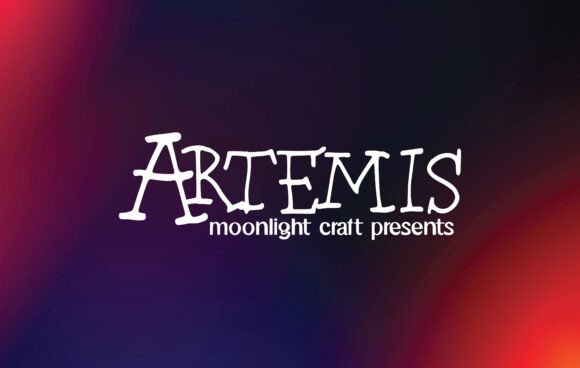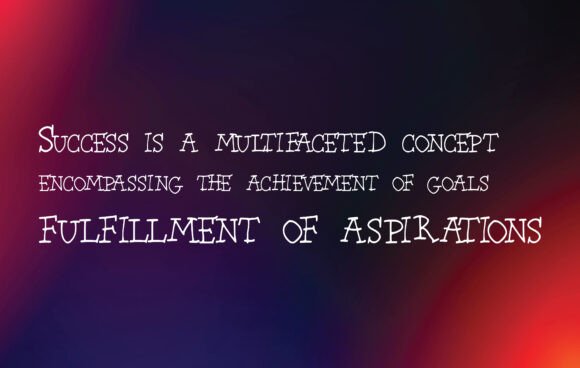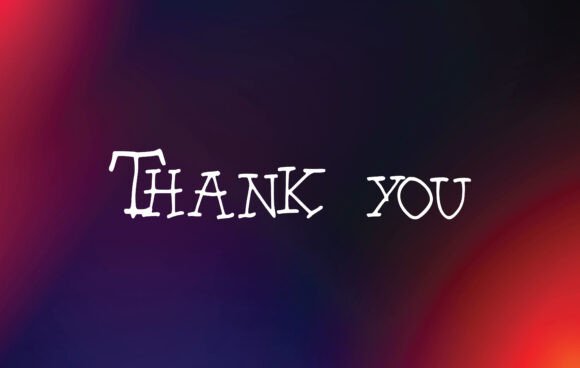
Artemis Font: A Unique Handwritten Font for Branding & DIY Crafts
About the Artemis Font
Welcome to the world of Artemis Font, a typeface that will inspire your next great project. Artemis is a lovely and beautiful handwritten font.This font has the potential to take your creative ideas to the highest level.It is the best choice for creating eye catching logos, branding and quotes.
Artemis excels in applications requiring a touch of elegance and personality, such as logos, short headlines, and social media graphics. Its handcrafted charm makes it ideal for branding projects aimed at a sophisticated, feminine audience, or products emphasizing quality and artistry. Avoid using it for large blocks of text or body copy; its intricate details can become visually overwhelming and difficult to read in extended passages.
For a balanced design, pair Artemis with a clean sans-serif like Lato for body text or a modern geometric sans-serif like Montserrat for a more contemporary feel. A classic serif such as Garamond can create a sophisticated contrast, while a playful script font, used sparingly, could add an extra layer of visual interest.
Artemis projects a confident yet graceful personality; it’s sophisticated without being stuffy. It’s best suited to projects that require a touch of handwritten charm without sacrificing legibility in short bursts.
Artemis Font Usage Examples
Artemis Font Example